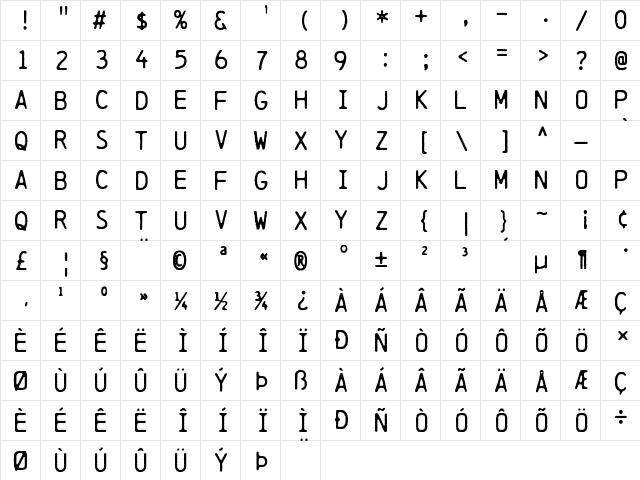
Chainprinter Regular
Design Context for Chainprinter Typeface
Chainprinter takes a measured approach to typography — its balanced proportions and neutral character make it a reliable workhorse for both digital and print work.